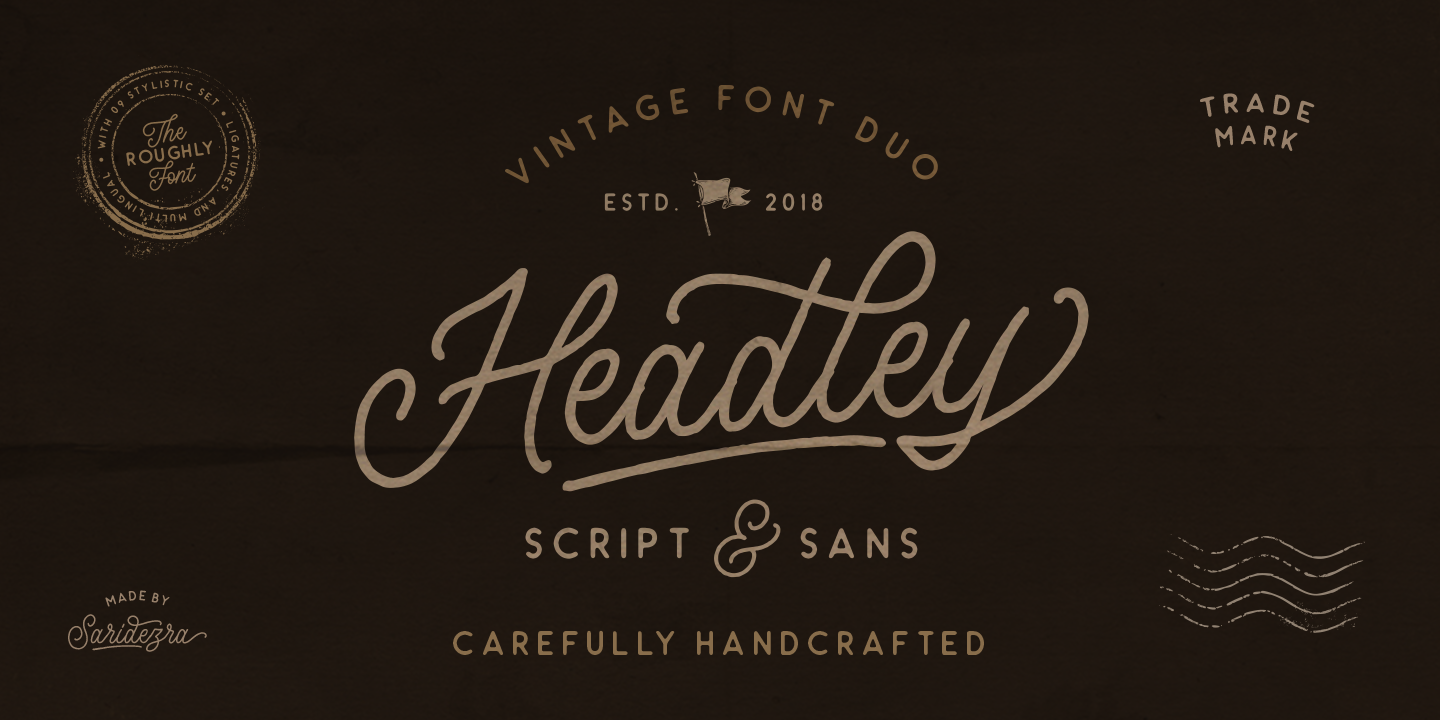
The Headley Font is an excellent choice for designs that demand a bold, confident, and often classic or vintage-inspired aesthetic, perfect for making a strong, clear statement. Imagine it gracing the logos of traditional businesses, adding an authoritative yet inviting feel to signage for established institutions, or bringing a distinctive, timeless vibe to editorial layouts. It's also perfectly suited for captivating poster designs, impactful advertising campaigns, and any project where you want to convey reliability, heritage, and a sense of enduring quality. With its robust forms and often sturdy serifs or sans-serif structure, the Headley Font is ideal for projects that aim for visual prominence and a memorable impression.
What makes the Headley Font truly exciting is its remarkable ability to blend traditional appeal with modern usability. It feels both strong and approachable, ensuring your message is not just seen, but respected and understood with ease. This font is designed for excellent legibility across various applications, from commanding headlines to supportive sub-text. It injects a sense of classic gravitas and dependable clarity into your designs, making it a reliable workhorse for a wide array of creative and business applications. The Headley Font Free Download offers a fantastic opportunity to infuse your projects with this distinctive character.
The Headley Font family is typically designed to offer a comprehensive range of weights and styles, maximizing its adaptability for diverse design requirements. While specific family members can vary, you can often expect to find:
Headley Thin
Headley Light
Headley Regular
Headley Medium
Headley SemiBold
Headley Bold
Headley Black
Headley Italic (or Oblique versions for various weights)
These extensive variations provide designers with ample flexibility to create intricate visual hierarchies, from delicate accents to impactful headlines, ensuring optimal performance across a wide array of applications while maintaining the font's signature bold and timeless appearance.